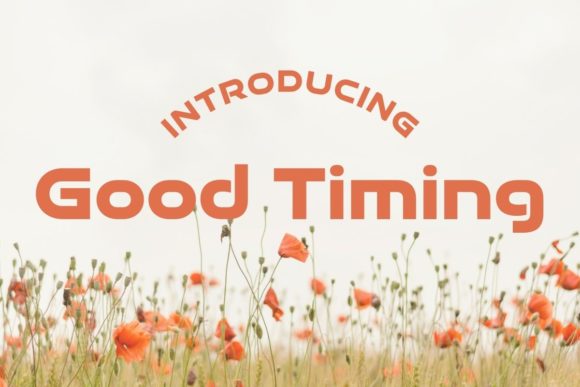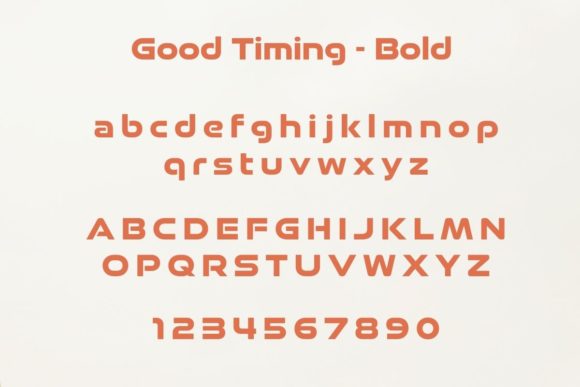
HomePersonal Use FreeGood Timing - Bold Personal Use Free Good Timing – Bold FacebookTwitterPinterestWhatsApp 1 of 2 About Good Timing – Bold Font Good Timing – Bold is a sans serif font that has smooth and thick, continuous lines that create an ultramodern typeface. DOWNLOAD NOW People also explored Heart Dingbats Font Watching Font Beautiful Love Font Semboyan Rans Font New Signatured Font Heidenberg Font Monogram D | Monofont Caps D Font Botanical Font Play Search Font 184 0 TagsGood Timing - Bold Font Previous articleJoystix MonospaceNext articleKenyan Coffee Stencil LEAVE A REPLY Cancel reply Comment: Please enter your comment! Name:* Please enter your name here Email:* You have entered an incorrect email address! Please enter your email address here Website: Save my name, email, and website in this browser for the next time I comment. Personal Use Free Stronger Personal Use Free Read more about this font Breakaway Personal Use Free Read more about this font Euphorigenic Personal Use Free Read more about this font Bridgetown Font Personal Use Free Read more about this font BLOG Where to Buy American Fonts Online in 2024 Where to Buy American Fonts Online: The Ultimate Guide for 2024 Looking for the perfect American font to elevate your design projects? You're in the... Using Fonts in Digital Marketing: Tips to Strengthen Your Brand Identity To increase your work productivity, choose the most readable fonts. Top 7 Google Fonts Alternatives for Faster and Privacy-Friendly Web Design (2025)